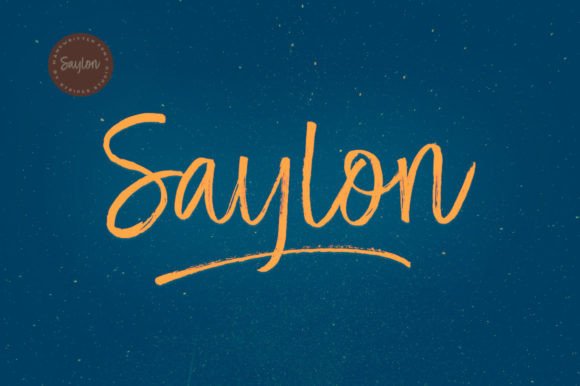
Journey into the realm of elegance with Saylon Font, a script typeface that dances across the baseline with captivating grace. Immerse yourself in the romantic aura and luxury spark that Saylon brings to every design project.
Saylon's characters flow and twirl, adding a touch of enchantment to logos, branding, invitations, posters, and social media posts. Witness the beauty of Saylon's swashes, effortlessly accessible through PUA encoding, allowing you to unleash your creativity without limits.
Saylon's versatility extends beyond its captivating aesthetics. It's crafted to provide effortless readability, ensuring your designs communicate clearly and impactfully. Its charming personality shines through, evoking emotions and leaving a lasting impression.
With Saylon, you're not just downloading a font; you're embracing an artistic journey. Its elegant strokes and playful details will transform your designs into captivating masterpieces. Let Saylon be the key to unlocking your creative potential and captivating the hearts of your audience.